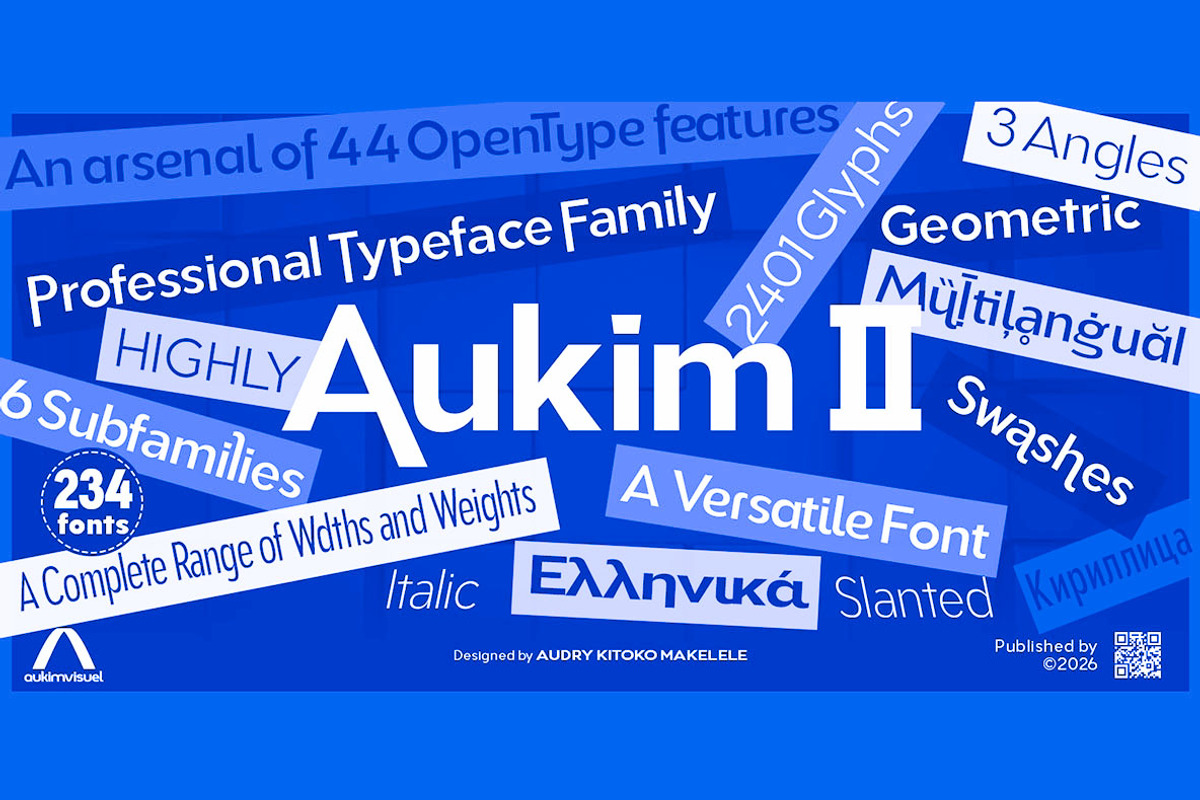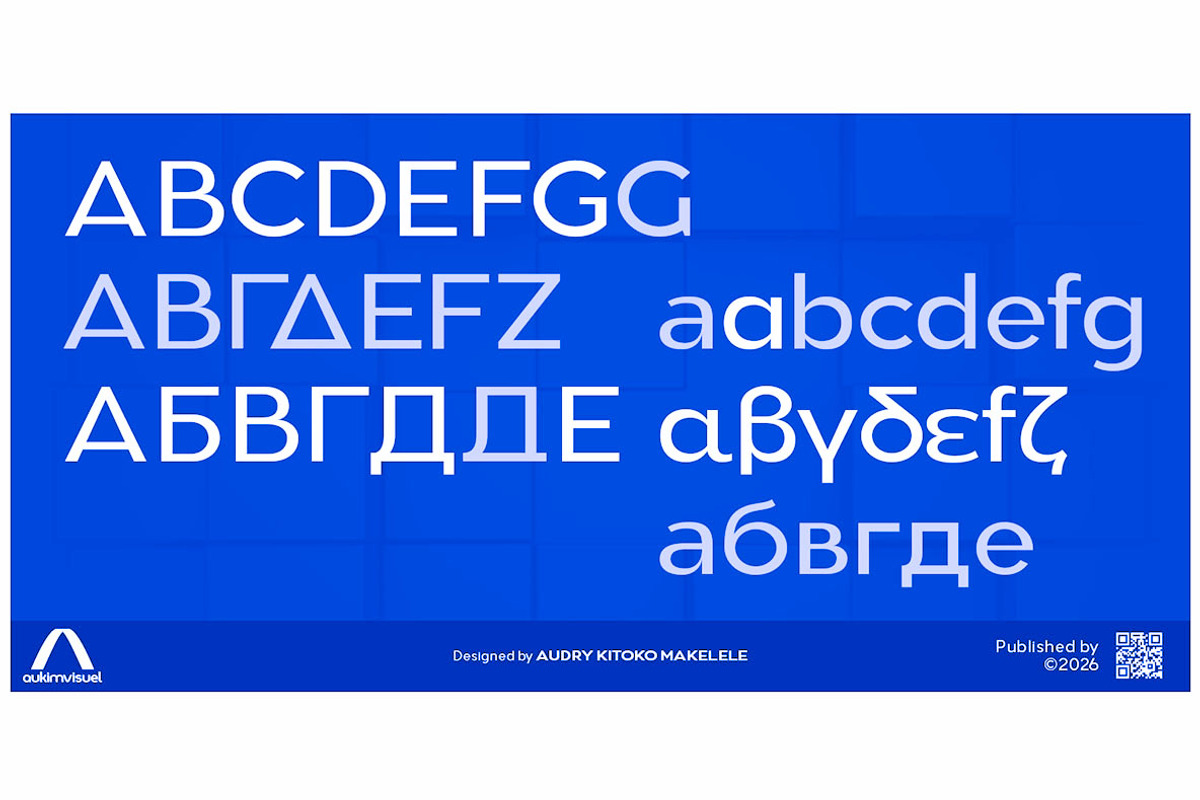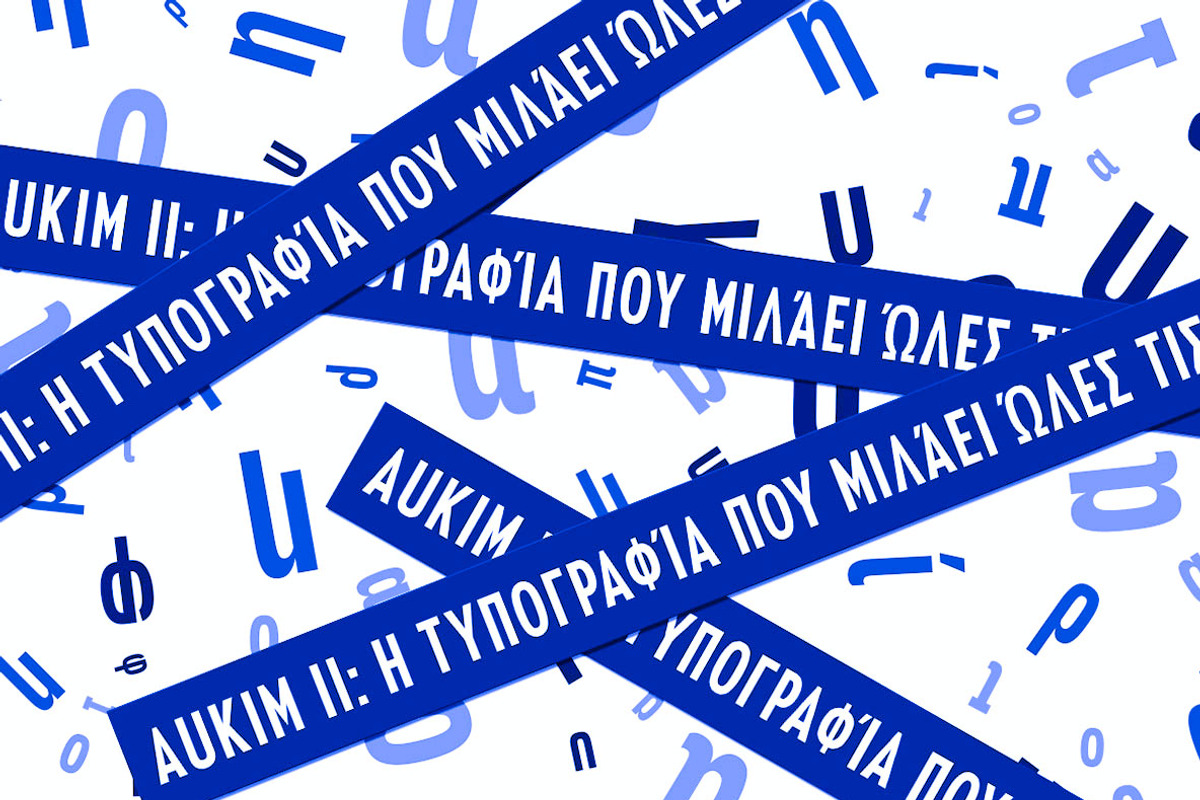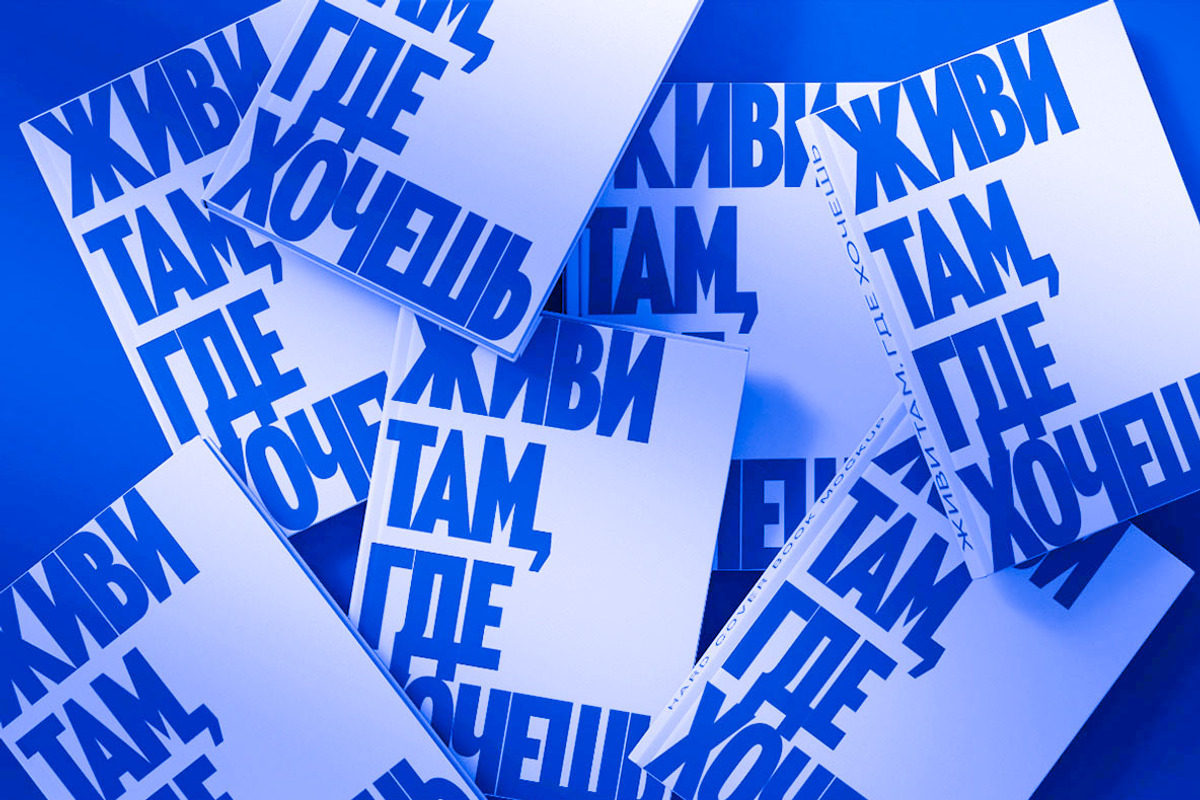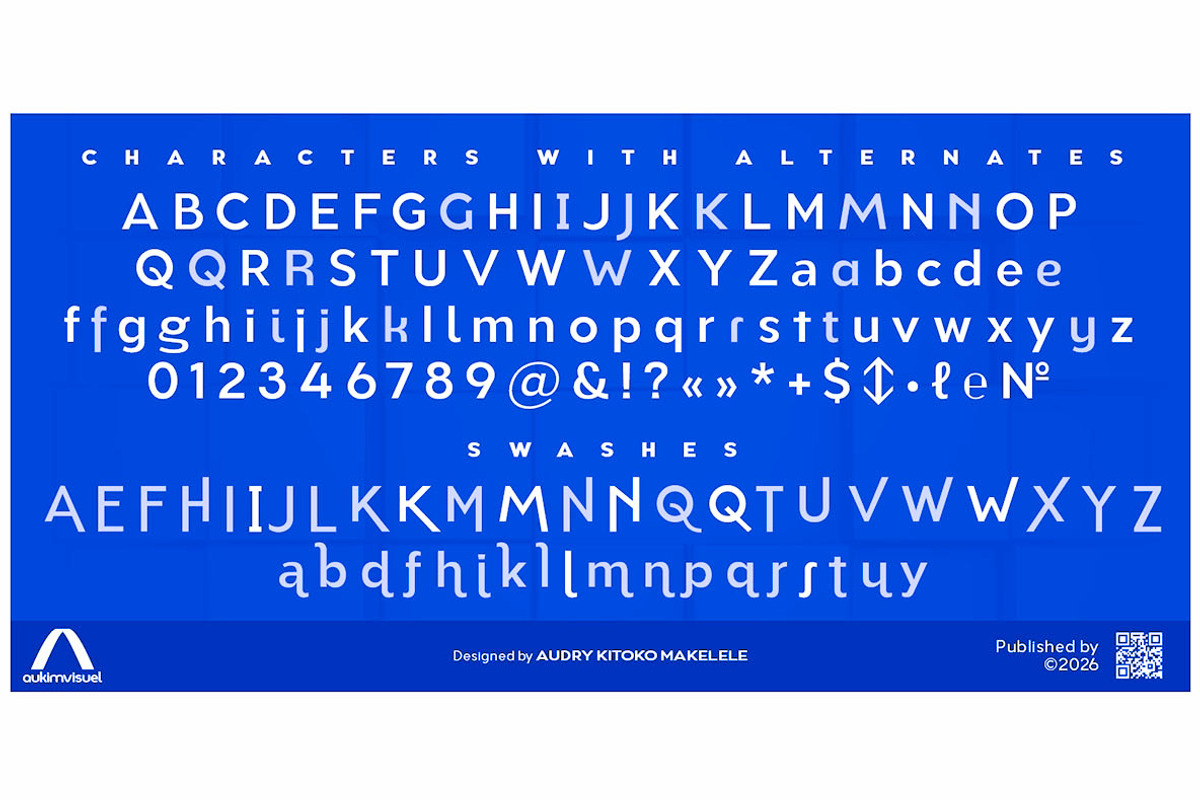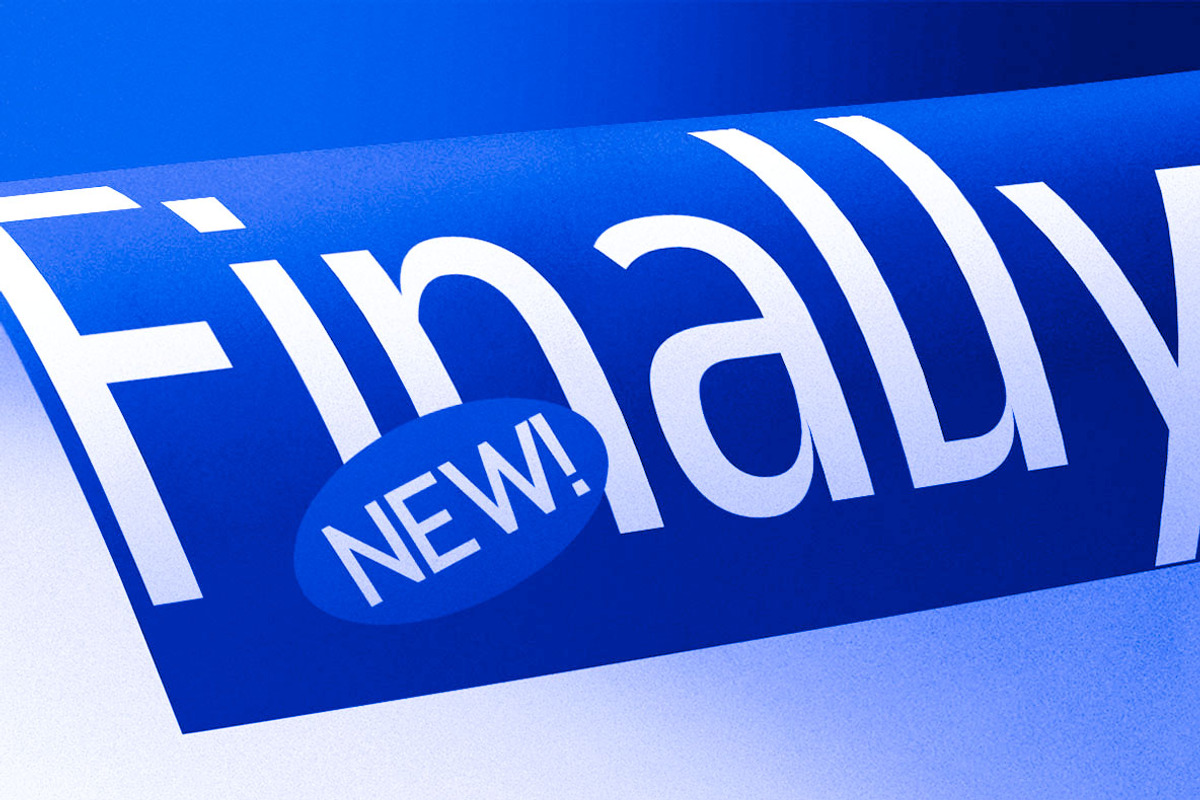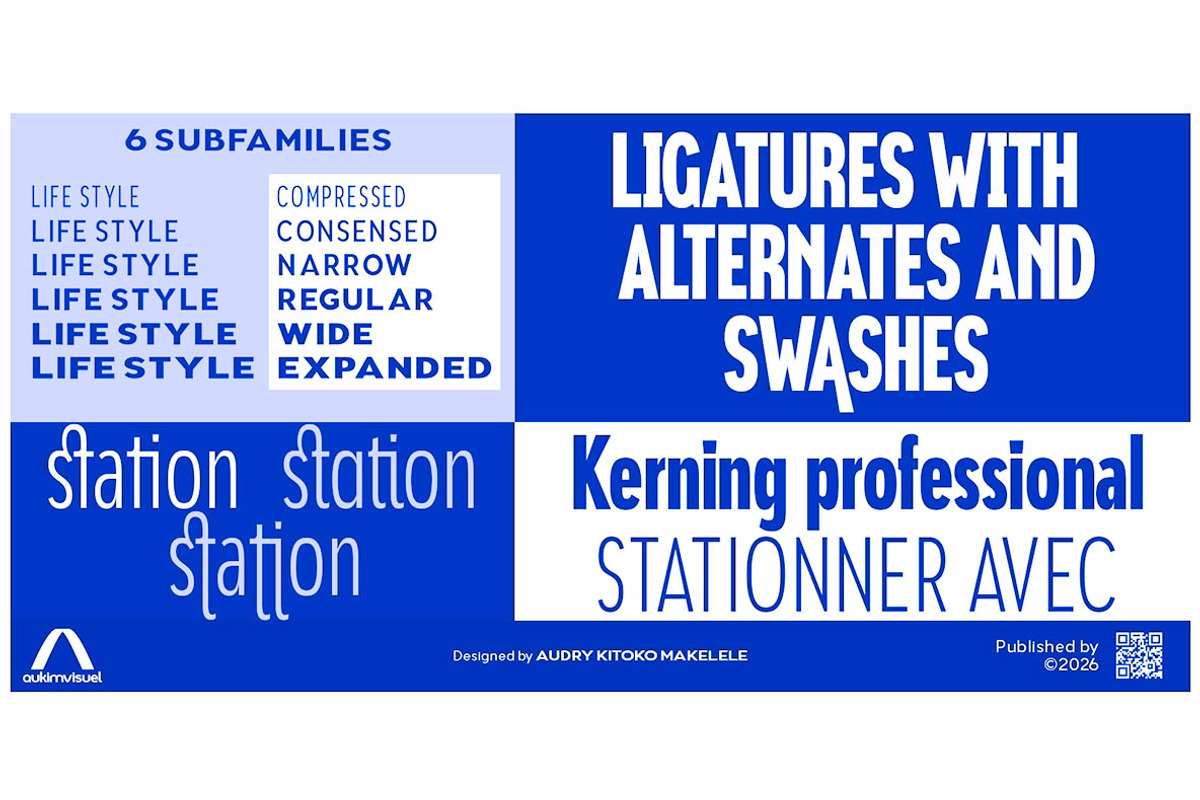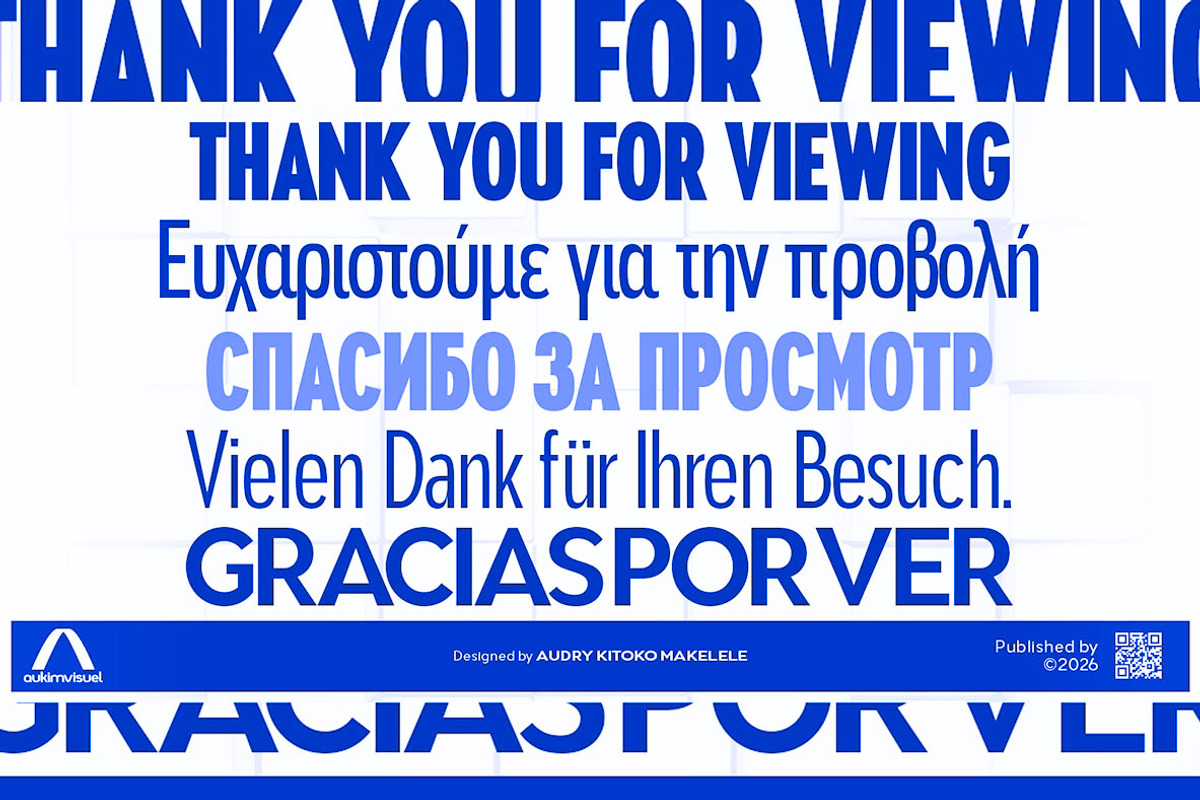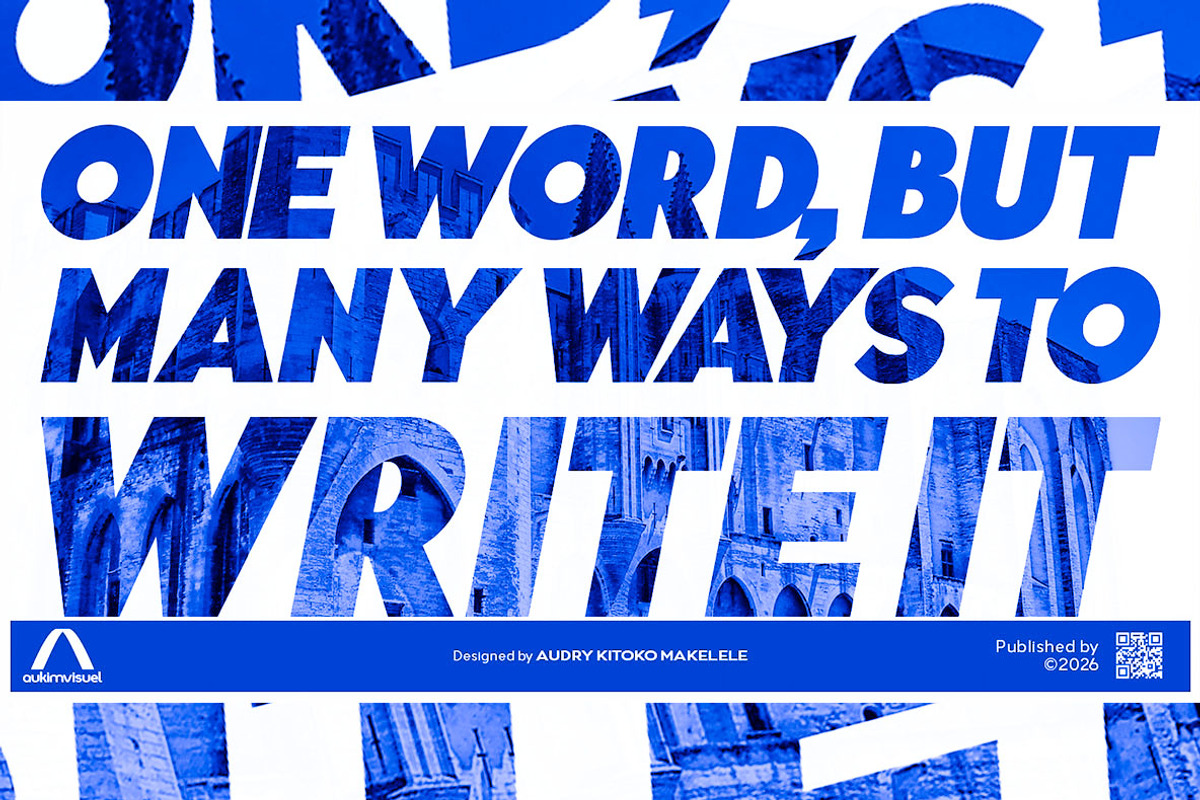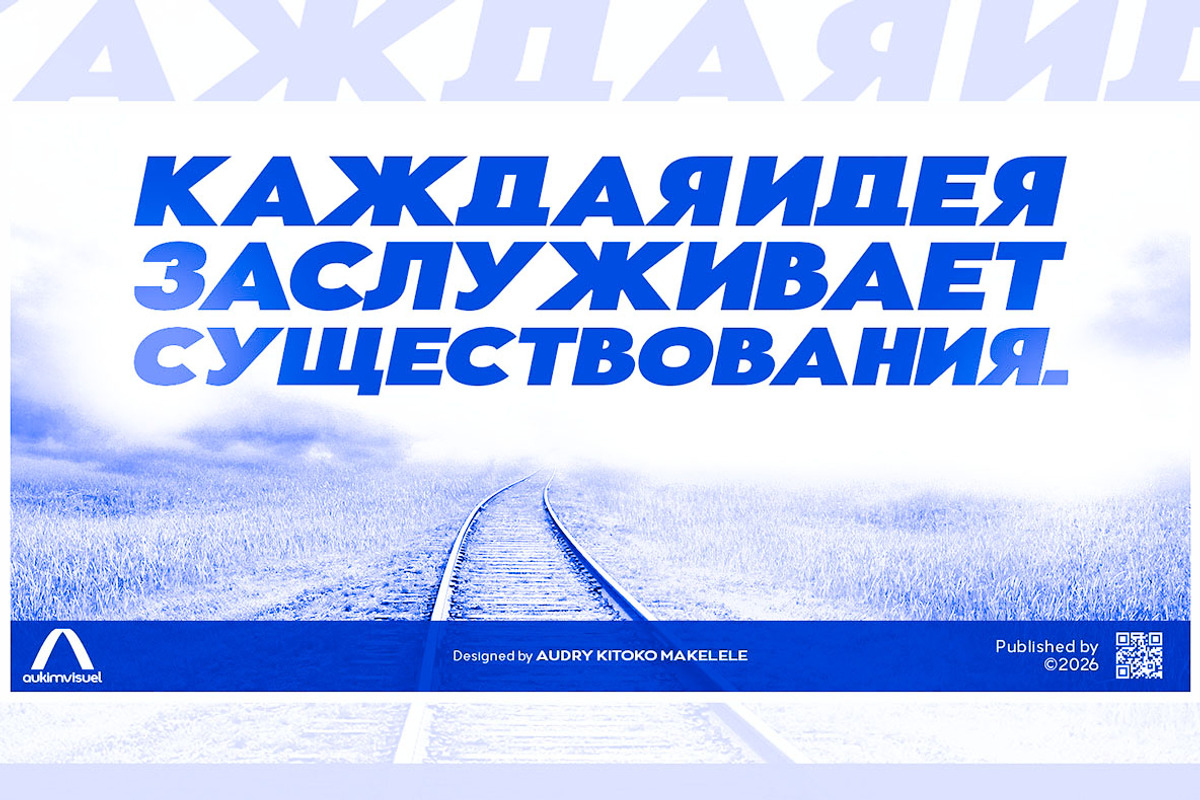
Aukim II Compressed
The modern sans serif typeface family Aukim II was designed to meet professional requirements for legibility, consistency, and stylistic flexibility. Its neutral yet distinctive design combines geometric and humanist influences to suit both headlines and body text in branding projects, interfaces, and print publications.
It offers extensive language coverage: the font supports Latin (basic, additional, extended, advanced, and IPA extensions), Cyrillic (basic, extended, and historic), and Greek (basic). With 2,401 glyphs, it includes numbers, punctuation, diacritics, currency symbols, and stylistic variants necessary for multilingual and specialized projects.
The family offers several optical widths (Compressed, Condensed, Narrow, Normal, Wide, and Expanded) allowing the typography to be adapted to layout, space, and visual hierarchy constraints. It is also available in three distinct angles: Normal, Italic, and Slanted, offering designers an expressive palette for prioritizing text, introducing dynamism, or reinforcing visual identity.
Typographically, it incorporates 44 OpenType features: contextual and discretionary ligatures, stylistic alternates, swashes, small caps, tabulars, fractions, superscripts/subscripts, case-sensitive forms, localized forms, and professional kerning. These tools offer precise control over rendering and enable neat compositions, whether in print or digital.
Technically, the font features careful kerning and optimized hinting for consistent rendering at all sizes. It is designed for multi-platform integration and is suitable for environments that require performance and compatibility.
In practice, Aukim II is aimed at design studios, branding agencies, publishers, and product teams. It is ideal for visual identities, multilingual user interfaces, editorial publications, and signage. Its range of widths, three angles, and OpenType features make it a versatile tool for professional projects that require consistency, expressiveness, and technical robustness.